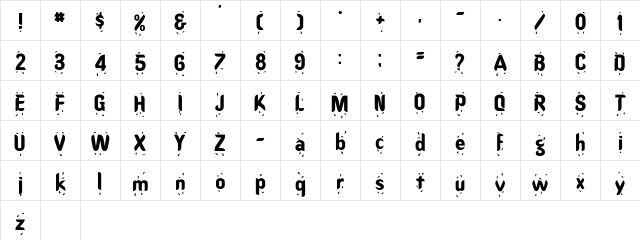
RainDanceSSK Regular Free Font
RainDanceSSK Regular
RainDanceSSK Family
Design Context for RainDanceSSK
RainDanceSSK is a composed and adaptable typeface that performs quietly and consistently across a wide range of design contexts.